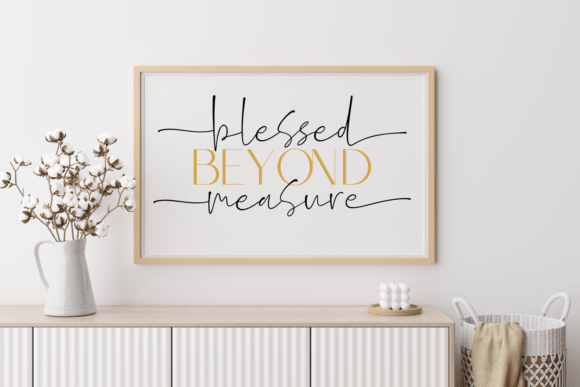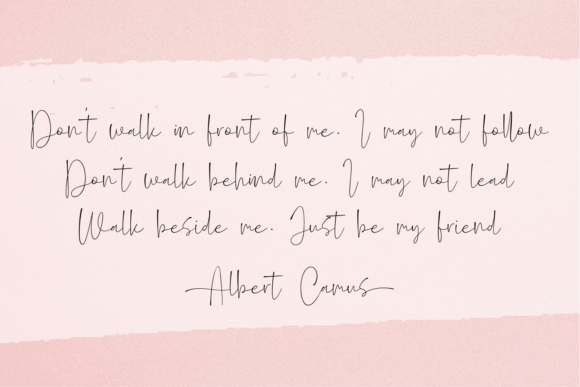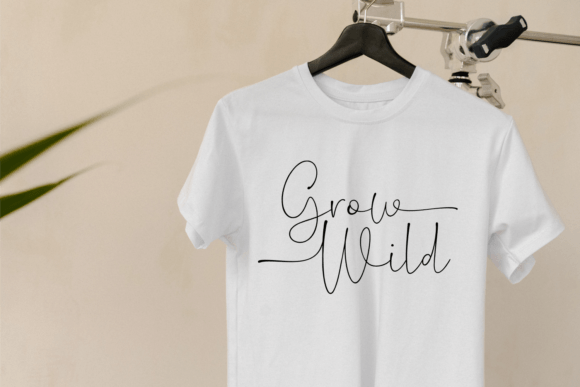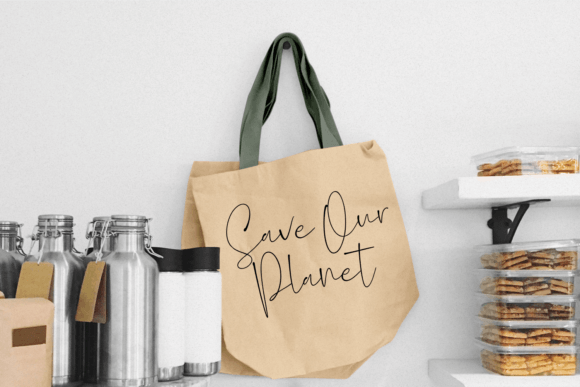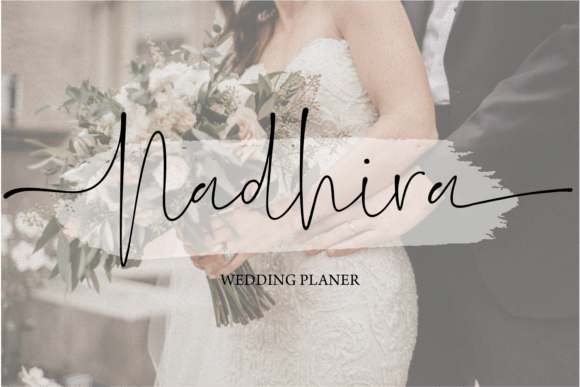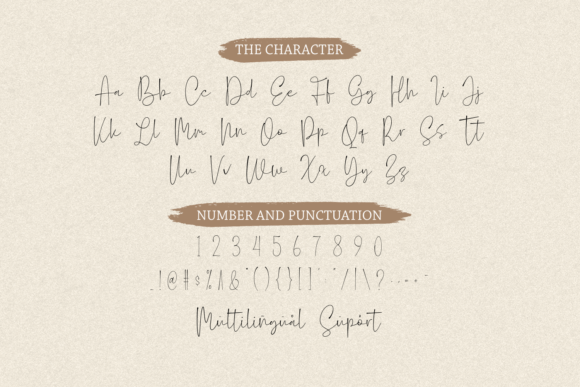
Introduction to Madyra Font
As a designer, there’s nothing quite like the thrill of finding the perfect font to elevate your creative project. You’re brainstorming ideas, sketching out concepts, and searching for the perfect design resource – and then it happens. You stumble upon a font that speaks to you, one that captures the essence of your vision and brings it to life. For many designers, that font is the Madyra Font.
This flowing handwritten font is a true gem, boasting an elegant touch that’s sure to make your designs stand out. With its incredibly distinct and timeless style, the Madyra Font is perfect for a wide range of creative projects, from wedding invitations to branding materials.
Key Features of Madyra Font
- High-quality design resource ideal for creative projects, including logos, branding, and graphics.
- Unique and stylish font design, featuring a modern aesthetic with a transparent background, allowing for versatile usage in digital and print media.
- Includes a range of characters, including uppercase and lowercase letters, numbers, and special characters, making it a comprehensive design resource.
- Designed to be highly legible and readable, even at small font sizes, making it an excellent choice for body text and headings.
Honest Review: Madyra Font
As a designer, I’m always on the lookout for high-quality design resources that can elevate my creative projects. Recently, I stumbled upon the Madyra Font, and I’m excited to share my honest review with you.
One of the things that stands out about the Madyra Font is its sleek and modern design. The font is perfect for creating a professional and sophisticated look in any project, whether it’s a logo, business card, or website. ✨ The font is available for free download, making it an excellent resource for designers on a budget.
The Madyra Font comes with a transparent background, allowing for seamless integration with any design element. The font is also highly customizable, making it easy to adjust to fit your specific design needs.
- Customizable
- May not be suitable for projects requiring a more rustic or vintage feel
- Limited font variations available
Overall, I’m impressed with the Madyra Font and would recommend it to designers looking for a high-quality, modern font for their creative projects. With its sleek design, free download, and transparent background, the Madyra Font is a valuable addition to any design resource library. ⚠️ Just be aware of its limitations, and you’ll be all set to create stunning designs with this font.
Common Use Cases for Madyra Font
The Madyra Font is ideal for:
1. Creating logos and branding materials.
2. Designing flyers and brochures.
3. Developing presentations and reports.